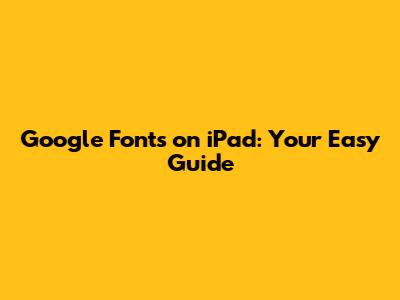
Hey guys! Ever wondered how to spice up your iPad projects with some cool fonts? Well, you're in luck! Using Google Fonts on your iPad is totally doable, and I'm gonna walk you through it. No need to be a tech wizard, I promise. We'll cover everything from downloading those awesome fonts to actually using them in your favorite apps. Let's dive in and make your iPad creations look even more amazing!
Why Use Google Fonts on Your iPad?
So, why bother with Google Fonts on your iPad, right? Well, there are tons of reasons! First off, Google Fonts is a massive library, like a treasure chest of fonts. Seriously, they have everything – from super sleek modern fonts to those quirky, vintage-looking ones. You're bound to find something that perfectly fits your style. And the best part? It's completely free! Yup, you heard that right. No hidden fees or subscriptions. Just pure font goodness waiting for you.
Then there's the versatility. You're not just limited to the basic fonts that come pre-installed on your iPad. Adding Google Fonts opens up a world of creative possibilities. Think about it: creating eye-catching presentations, designing stunning social media graphics, or even making your notes and documents look extra polished. It’s all about expressing yourself and making your work stand out. Using Google Fonts on your iPad is like giving your iPad a major style upgrade.
Another huge plus is the consistency. If you're working on projects that you'll be sharing with others, using Google Fonts ensures that your fonts will look exactly as intended, no matter what device they're viewed on. That's a huge deal for professional presentations, collaborative projects, or just making sure your friends see your awesome designs exactly the way you envisioned them. You get consistent results across all your projects. So, are you ready to jazz up your iPad with some killer fonts? Let's get started!
Using Google Fonts in Your iPad Apps
Okay, so you’ve got those gorgeous fonts installed – now what? Time to unleash them in your favorite apps! The process is pretty straightforward, but it might vary slightly depending on the app you're using. Let’s look at some popular options.
First up, let’s talk about using Google Fonts in apps like Pages, Keynote, and Numbers, which come pre-installed on your iPad. These apps are super user-friendly and great for creating documents, presentations, and spreadsheets. When you’re editing text in these apps, you’ll usually find the font options in the formatting menu. Just select the text you want to change, tap on the font style option, and scroll through the font list until you find your newly installed Google Fonts.
Now, for those of you who are into design and visual content creation, apps like Canva and Procreate are your best friends. These apps are incredibly versatile and allow for some serious creative freedom. In Canva, you typically find the font options in the text editing panel. When you go to add text, you can browse through the font library and select your installed Google Fonts. In Procreate, you will typically find the fonts under the text option when you select the text tool. Once you select the text tool, you can start adding the fonts from your installed Google Fonts.
As you can see, the basic process is similar across most apps: Find the font options, browse the list, and select your font. Make sure the app actually supports custom fonts. Most apps do these days, but it’s always a good idea to double-check. And don't be afraid to experiment! Try out different fonts to see which ones best complement your designs. Enjoy creating!